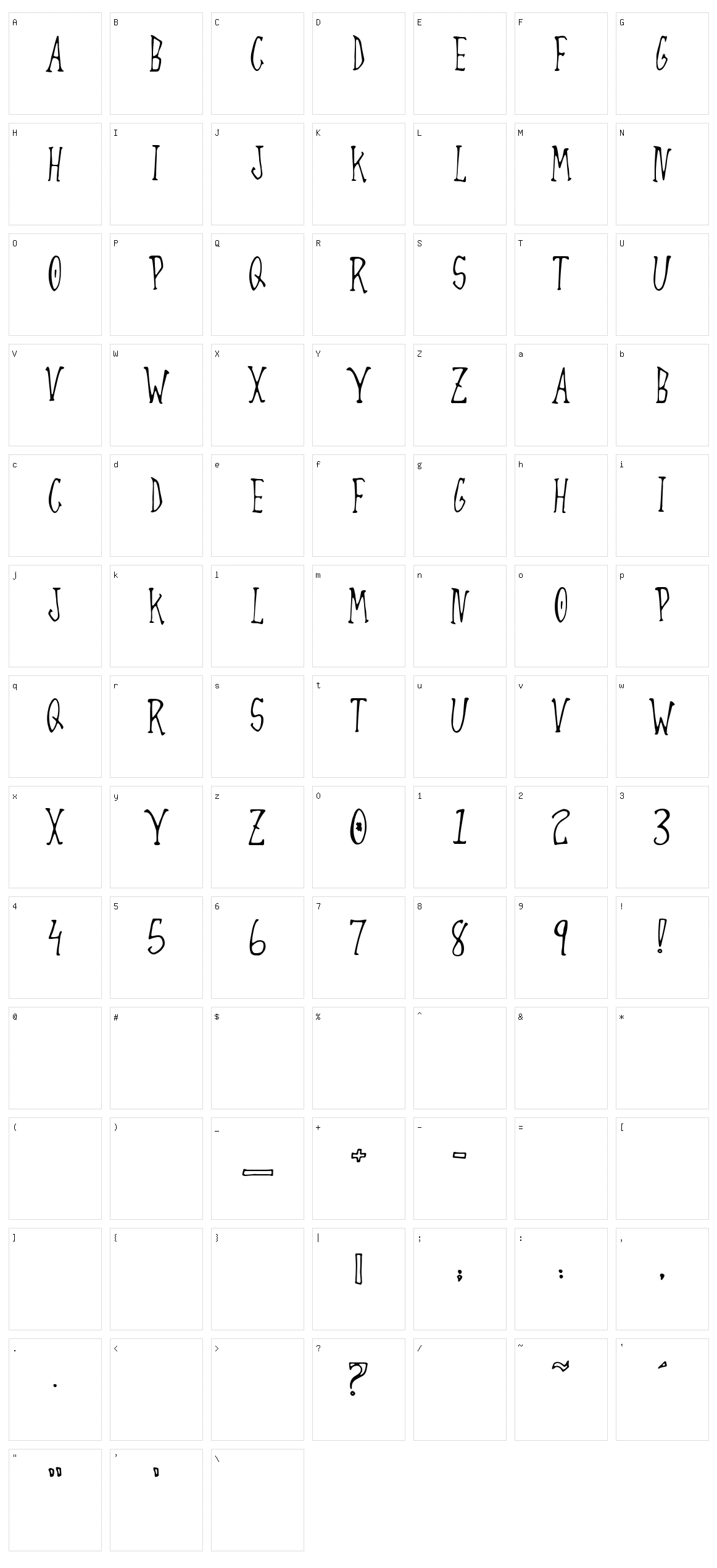
ALWAYS JOKING
A TrueType Font by S. John Ross
Heres a return to some of my older font-making habits, where the font is a record of my doodling, more than any kind of project-oriented design work. Always Joking goes for a blend of madness and warmth, with an arms-flailing-about sort of aesthetic coupled to the sort of soft-edged look I enjoy. It isnt a complete keyboard set, though (my doodle fonts seldom are), but rather an all-caps font with numerals and a random assortment of punctuation and extras (very random indeed; it has smart-quotes but not parentheses, for example, and how much sense does that make? Im insane, I tell you. Guard your cats!)